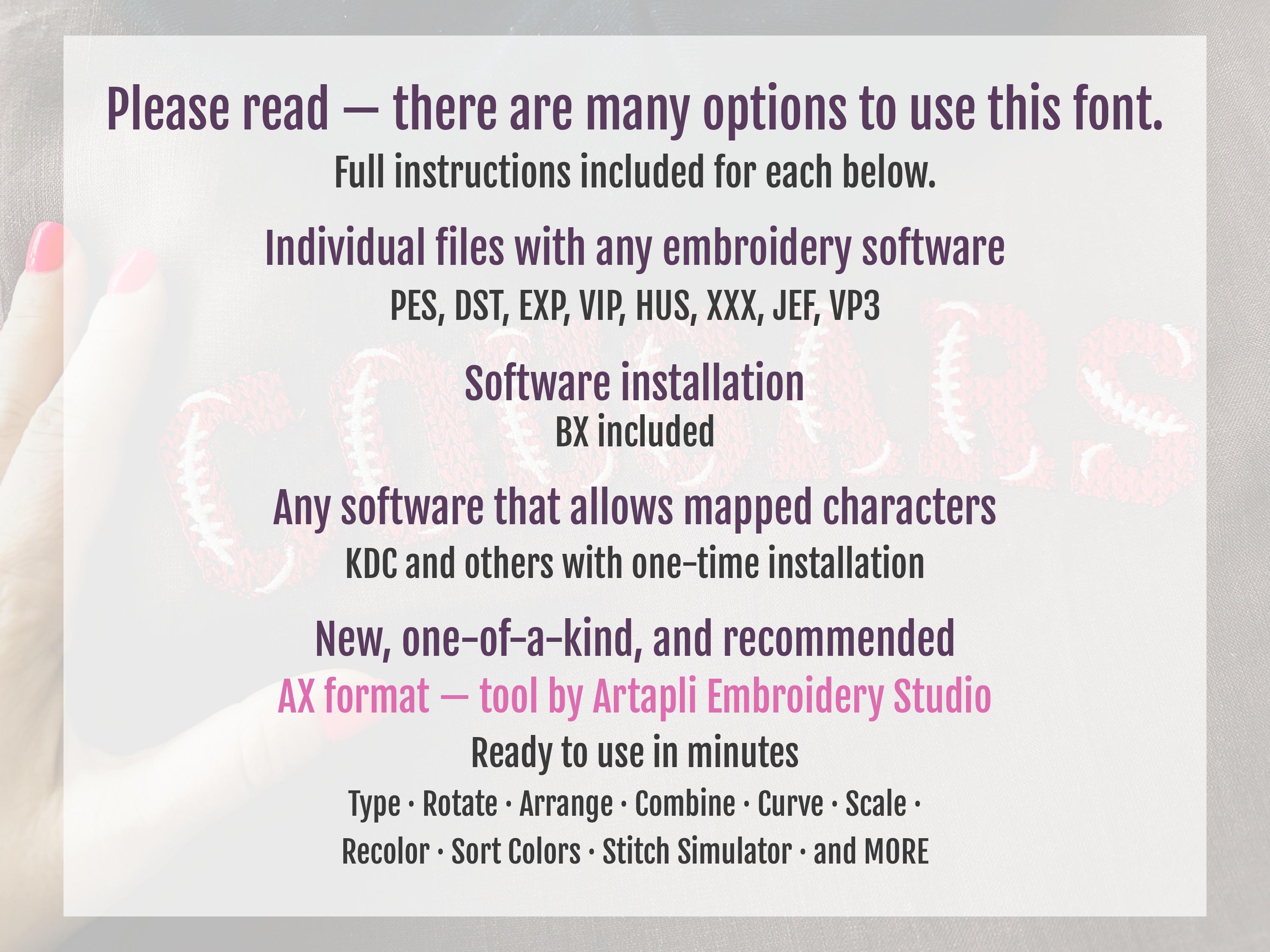
Knit stitch Football FONT hand stitch effect knitted Block Font Varsity Athletic Sport alphabet monogram machine embroidery designs and BX included
Whole alphabet uppercase A-Z, numbers 0-9, and punctuation.
The font is transparent, it has a knit stitch fill, a nice simple hand stitch effect outline, and football seam decoration.
Stitched out really nice. Love the knitted look!
I’m obsessed with this item. So cute!
Fun to stitch out football font.
Building my font library, seems like a very useful and fun font to have!! Can't wait to use it.